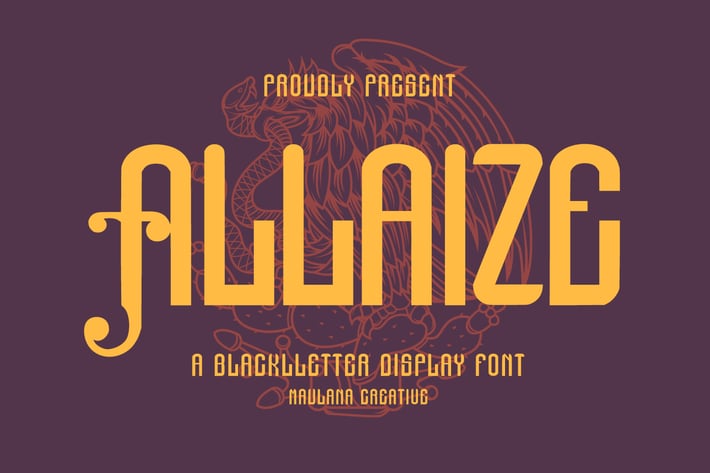
Allaize Blackletter Display Font
Introducing Allaize Blackletter Display Font.
Allaize Blackletter Font is a handmade Modern Victorian handlettering, which is combining modern and classic typography with some awesome alternates. Yes we back to early 1800s, bring classic touch on this decade.
- Alternate